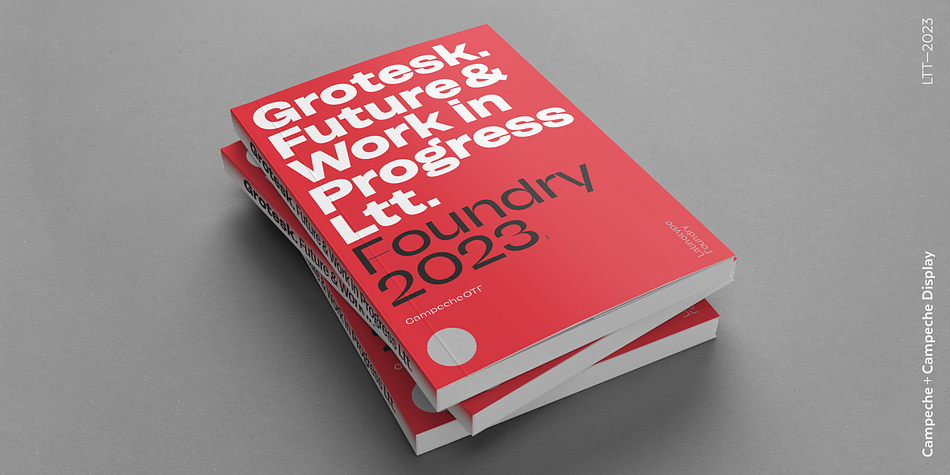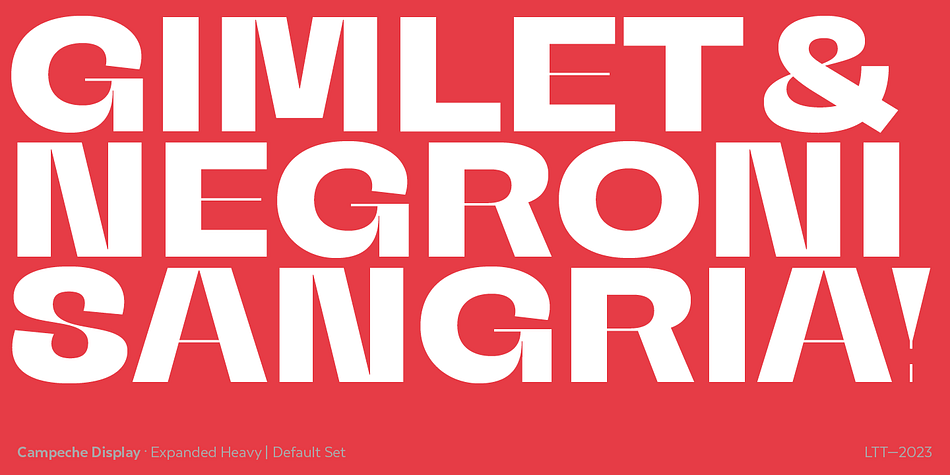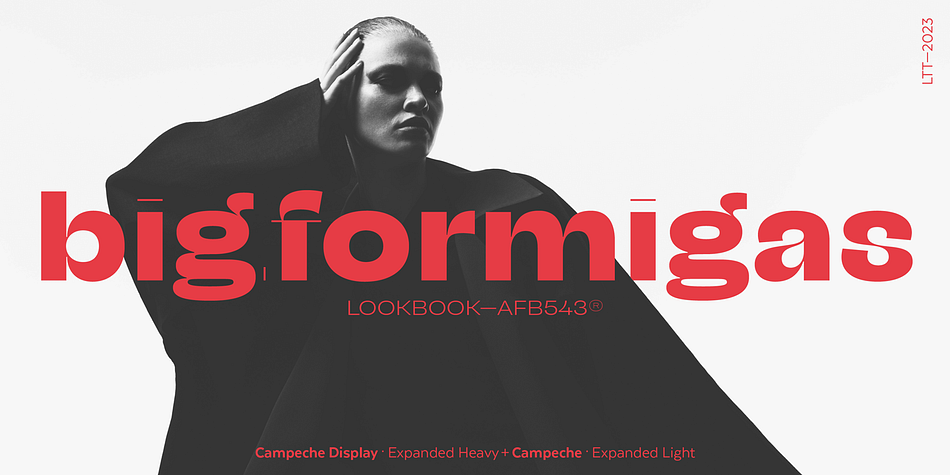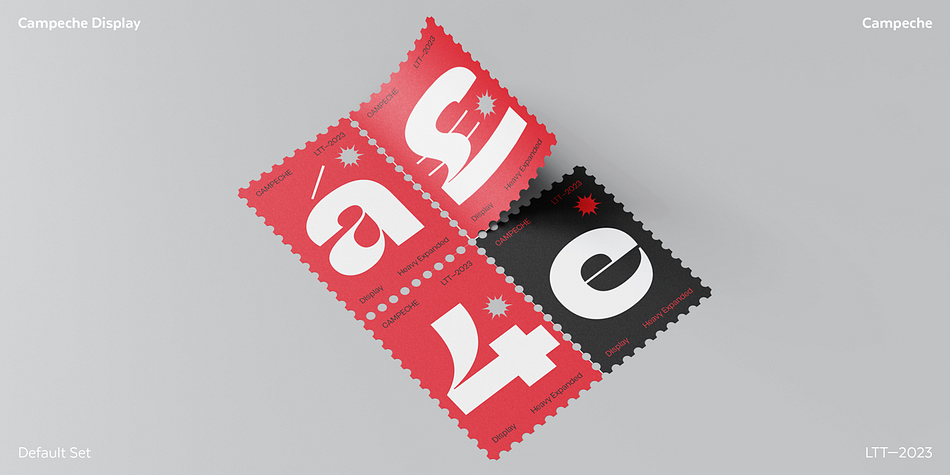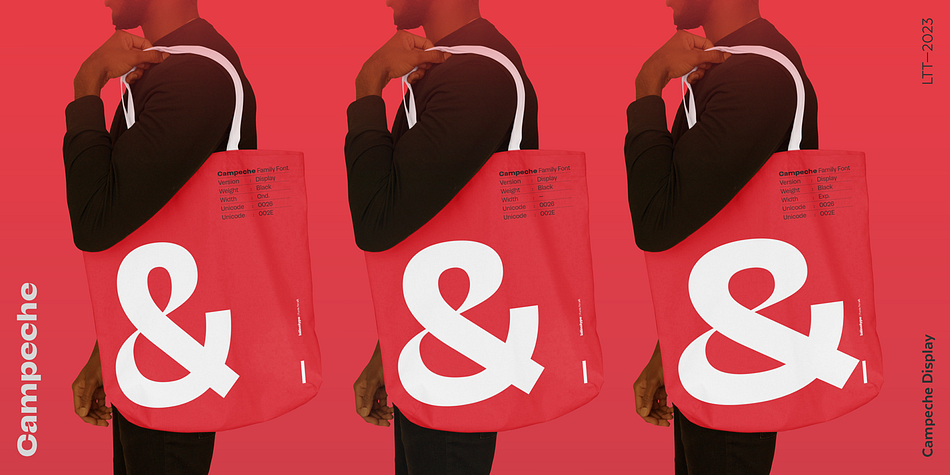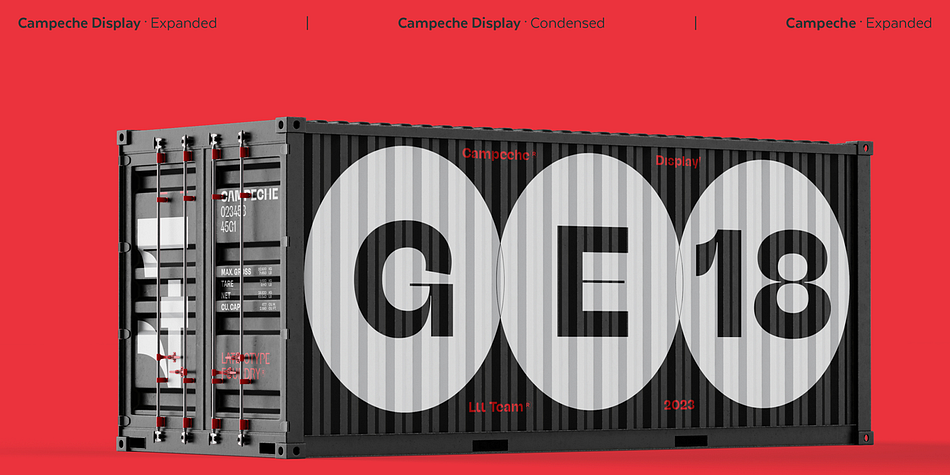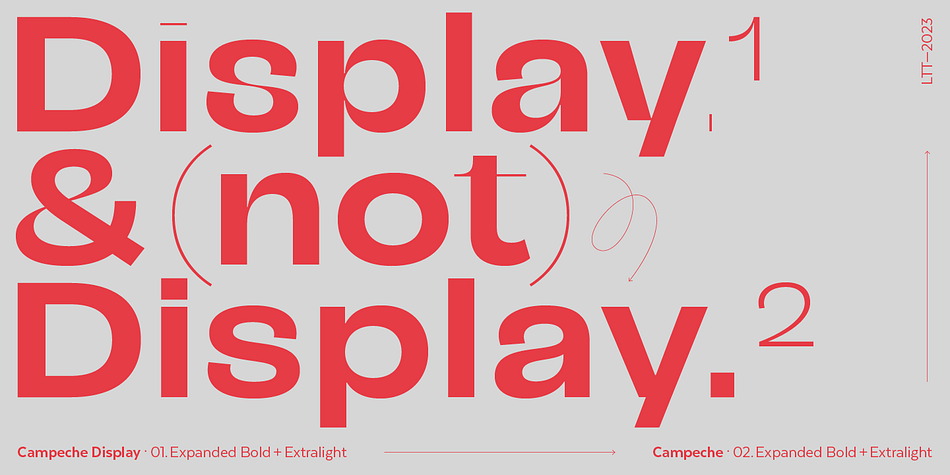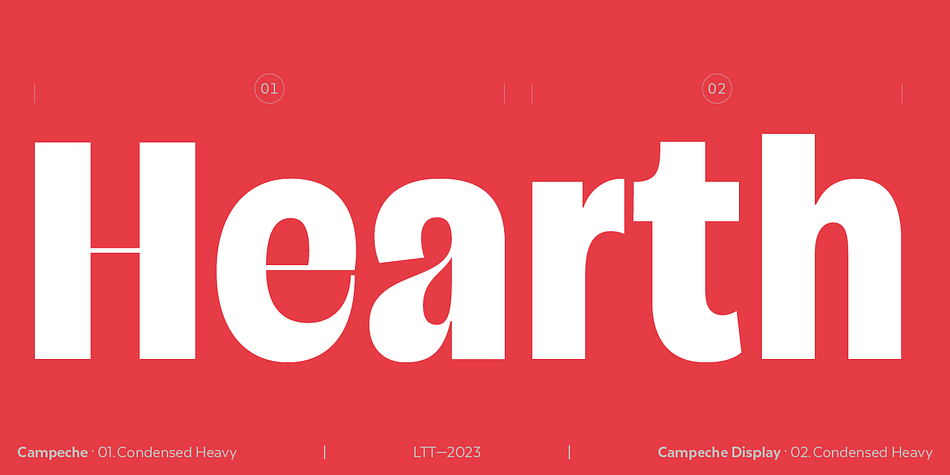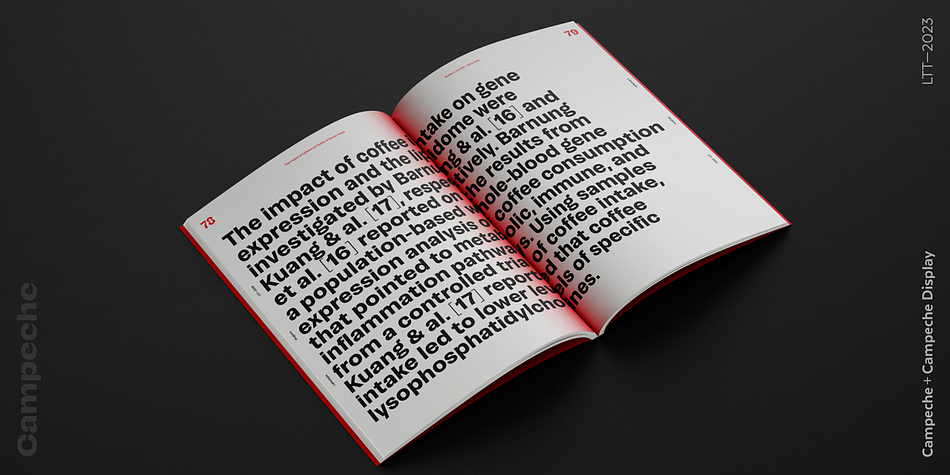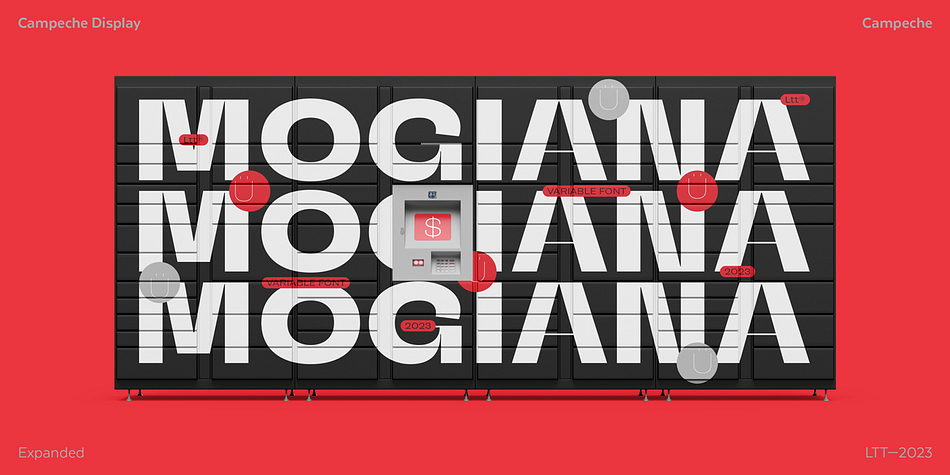
Campeche
Designed by Sofia Mohr, Campeche is a sans serif font family. This typeface has fifty-four styles and was published by Latinotype.
Campeche is an expressive yet functional typeface family. Seeking to express its beauty, it twists the conventions of classic typography when necessary.
Campeche finds its inspiration in the grotesque typefaces of the late 19th century coupled with a typical Latin American playful sense that gives it a modern freshness.
The initial form arises from the idea of expanding Seriguela, evolving along the way, becoming its own system with a unique personality.
Campeche is designed for today’s requirements. It is available in two styles and three widths, from condensed to extended, with 9 weights each, totaling 54 fonts, in addition to the variable version.
Campeche is a comprehensive typographic system that provides versatility for almost any use. It can be used for packaging, editorial, branding… etc. The mix of widths and between the normal and display versions can generate complex graphic parts or systems with different levels of hierarchy, without losing unity.